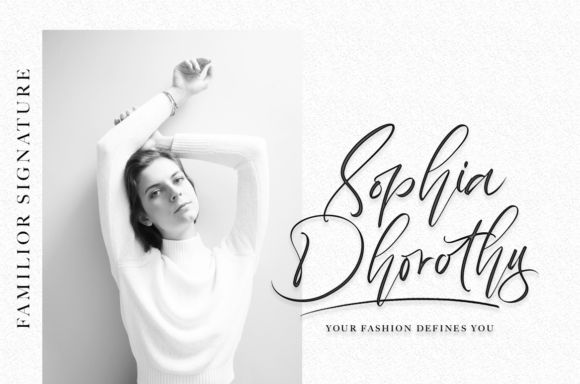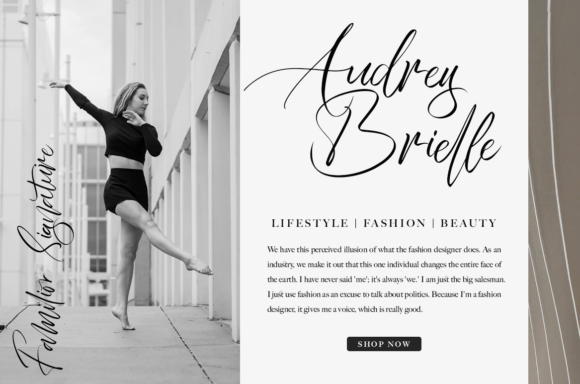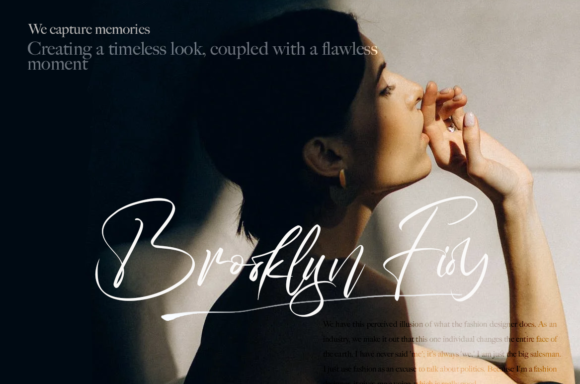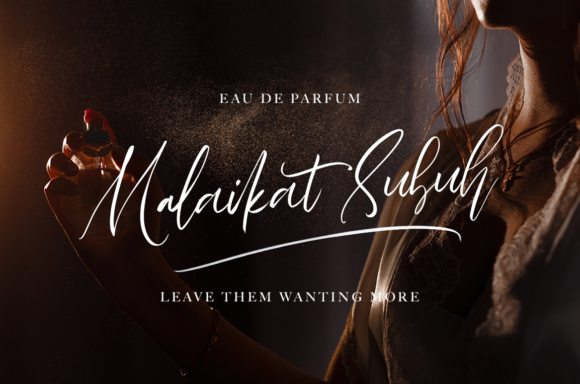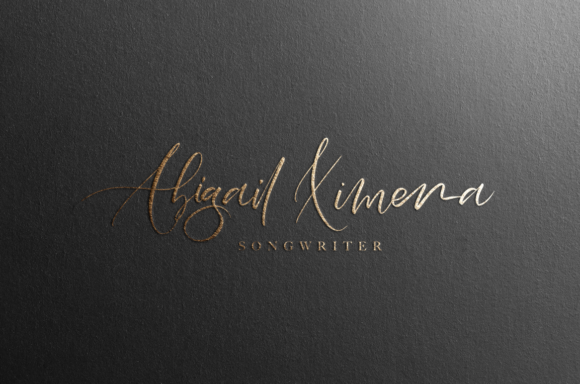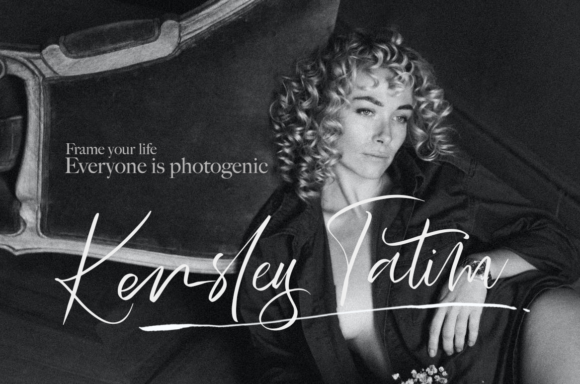
Introducing Familior Font: Elevate Your Designs with Elegance and Charm
Are you on the hunt for a font that exudes both charm and elegance? Look no further than Familior, a stunning script font that pays homage to the timeless beauty of classic calligraphy. With its unique blend of varying baselines, smooth lines, gorgeous glyphs, and stunning alternates, Familior is the perfect addition to any design project. Whether you’re a designer looking to elevate your Instagram game or a crafter seeking inspiration for your next DIY project, Familior is sure to turn your creative ideas into true works of art.
The Characteristics of Familior Font
Familior font is a masterclass in elegant script design. Its varying baseline gives it a sense of fluidity and movement, while its smooth lines and curves create a sense of sophistication and refinement. The font also features a wide range of gorgeous glyphs and alternates, allowing you to add unique touches to your designs and make them truly stand out.
What Makes Familior Font So Versatile?
One of the things that sets Familior apart from other script fonts is its incredible versatility. Whether you’re looking to create eye-catching Instagram posts, elegant wedding invitations, or beautiful DIY crafts, Familior is the perfect choice. Its elegant lines and charming character make it suitable for a wide range of design projects, from formal events to casual social media posts.
Using Familior Font for Instagram and Social Media
In today’s digital age, having a strong online presence is more important than ever. With Familior font, you can elevate your Instagram game and make your social media posts stand out from the crowd. Use it to create beautiful graphics, quotes, and stories that showcase your personal style and creativity. Whether you’re a blogger, influencer, or small business owner, Familior is the perfect tool for building your brand and connecting with your audience.
Familior Font for DIY Projects and Crafts
Familior font isn’t just limited to digital design. Its elegant lines and charming character make it perfect for a wide range of DIY projects and crafts. Use it to create beautiful handmade cards, invitations, and decorations for special occasions. You can also use it to add a personal touch to your scrapbooking, journaling, and other paper crafting projects.
Tips for Getting the Most Out of Familior Font
To get the most out of Familior font, here are a few tips to keep in mind:
- Experiment with different font sizes and colors to find the perfect combination for your design.
- Use Familior in combination with other fonts to create a unique and eye-catching visual effect.
- Don’t be afraid to get creative and try out new and unusual design ideas.
- Take advantage of Familior’s gorgeous glyphs and alternates to add a personal touch to your designs.
In conclusion, Familior font is a truly exceptional script font that offers a unique blend of elegance, charm, and versatility. Whether you’re a designer, crafter, or simply someone who loves to create, Familior is the perfect tool for bringing your ideas to life. With its smooth lines, gorgeous glyphs, and stunning alternates, Familior is sure to turn any creative project into a true work of art. So why wait? Download Familior font today and start elevating your designs to new heights!